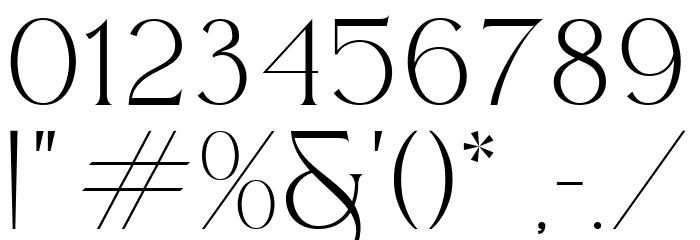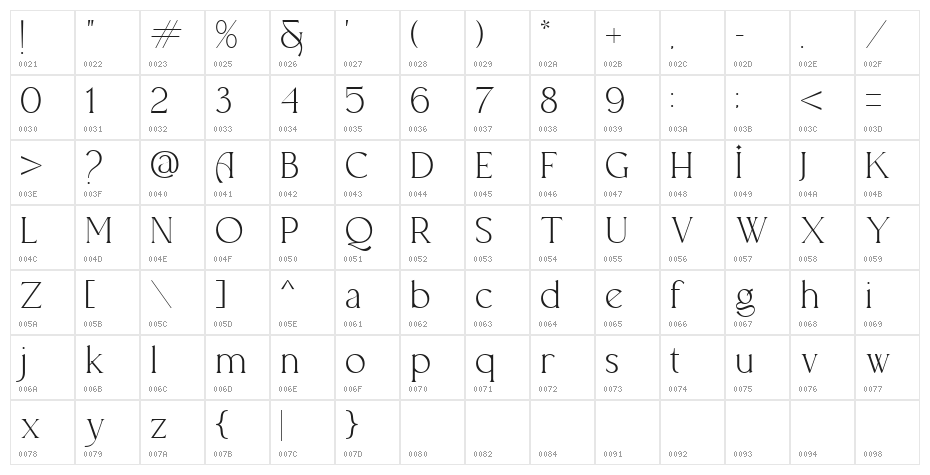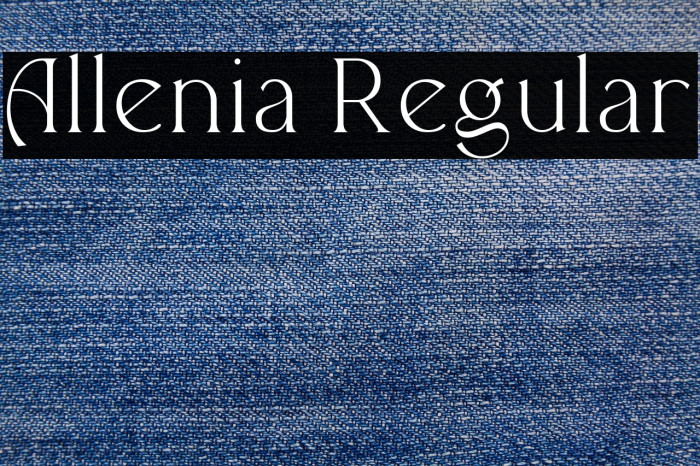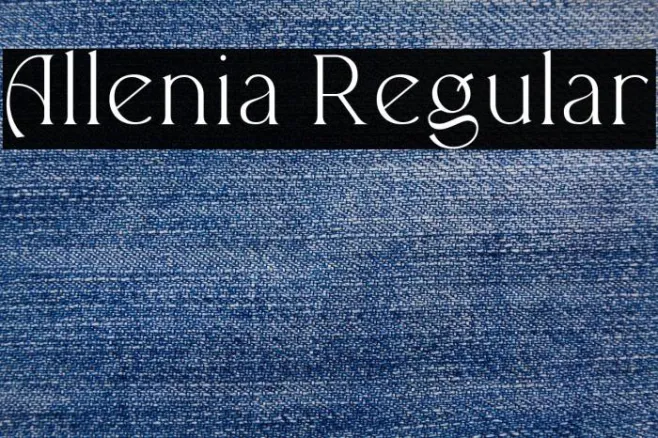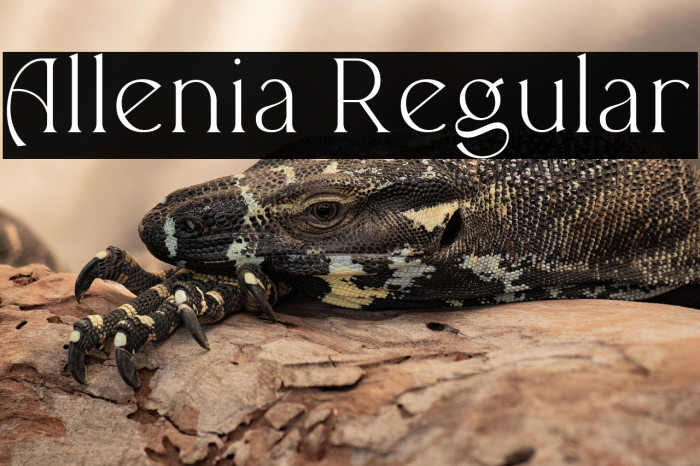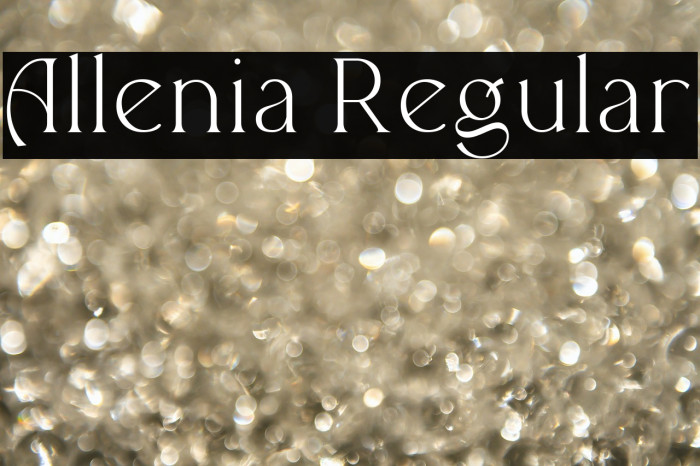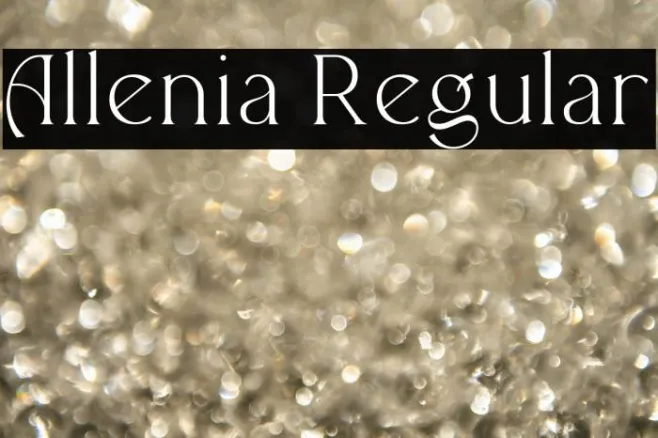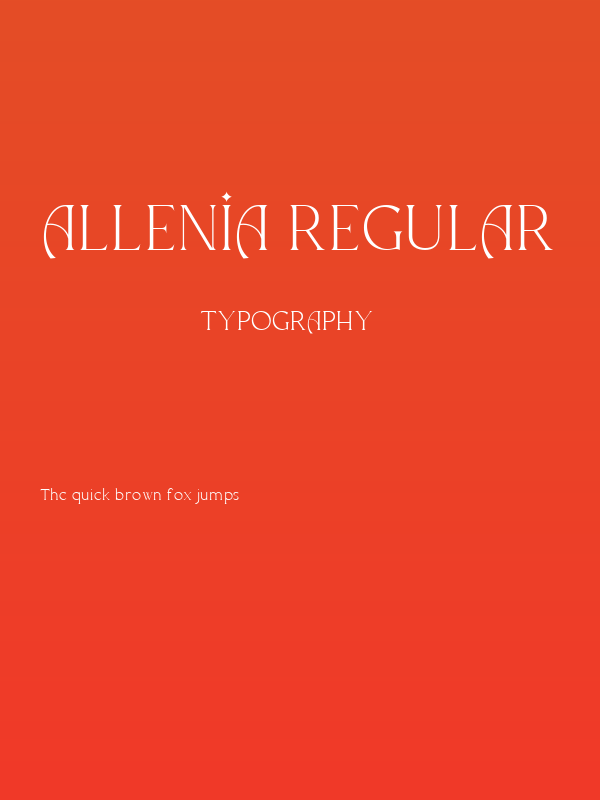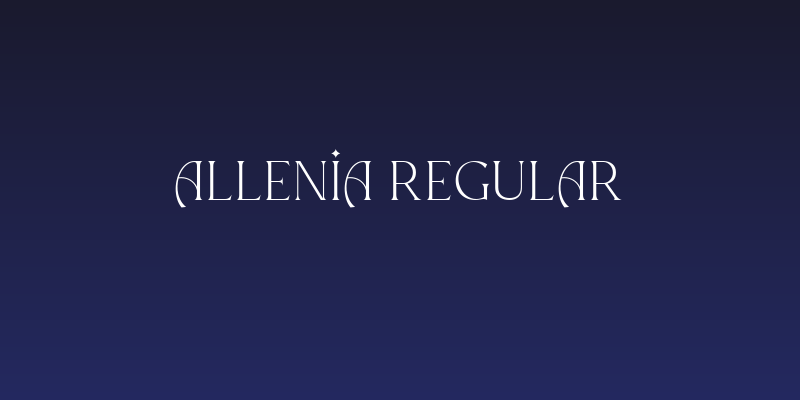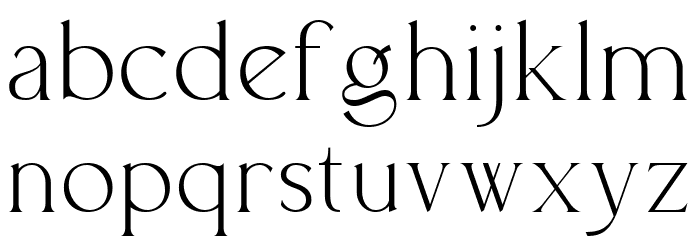
Allenia Regular Font
Allenia Regular Description
This elegant typeface features a refined and sophisticated design with a modern twist. The characters exhibit a high contrast between thick and thin strokes, adding a touch of elegance and readability. The uppercase letters are distinct with subtle curves and sharp edges, while the lowercase letters maintain a graceful flow. The numerals are clear and consistent, complementing the overall aesthetic. Special characters are thoughtfully designed, enhancing the font's versatility. This typeface is perfect for projects that require a touch of class and modernity.
| Proposed Projects | Ideal for luxury branding, editorial design, wedding invitations, and high-end product packaging. |